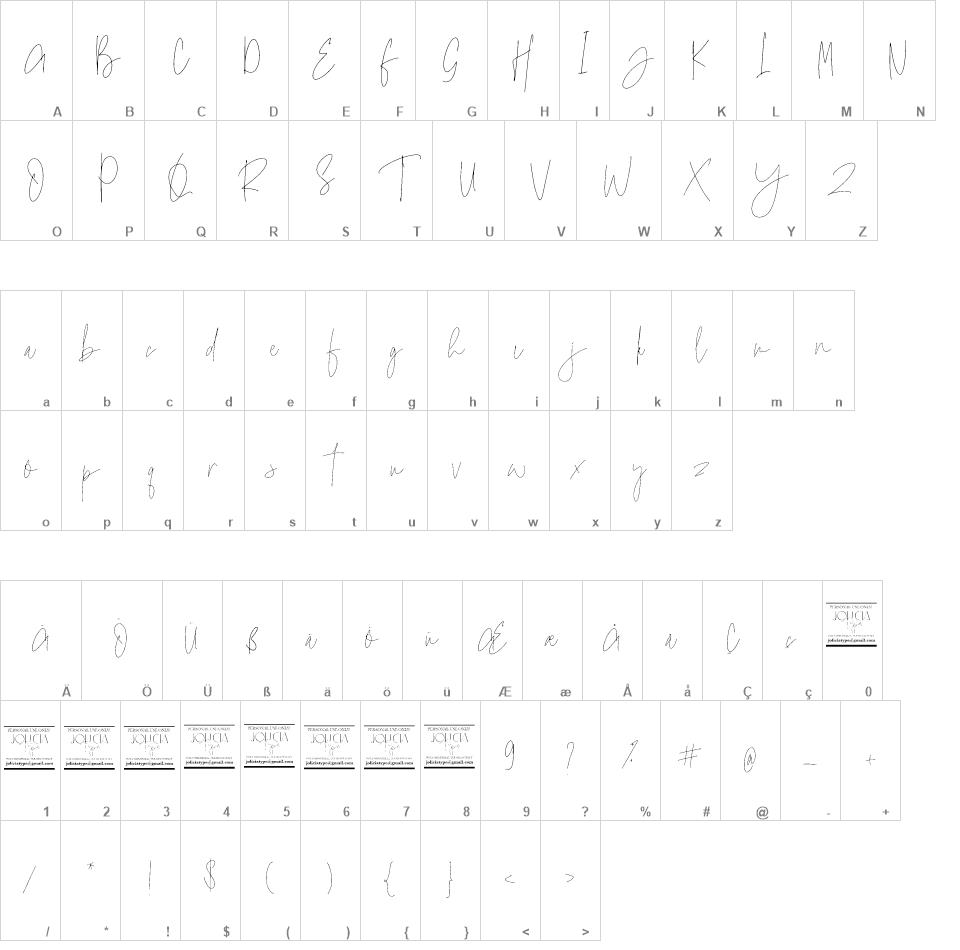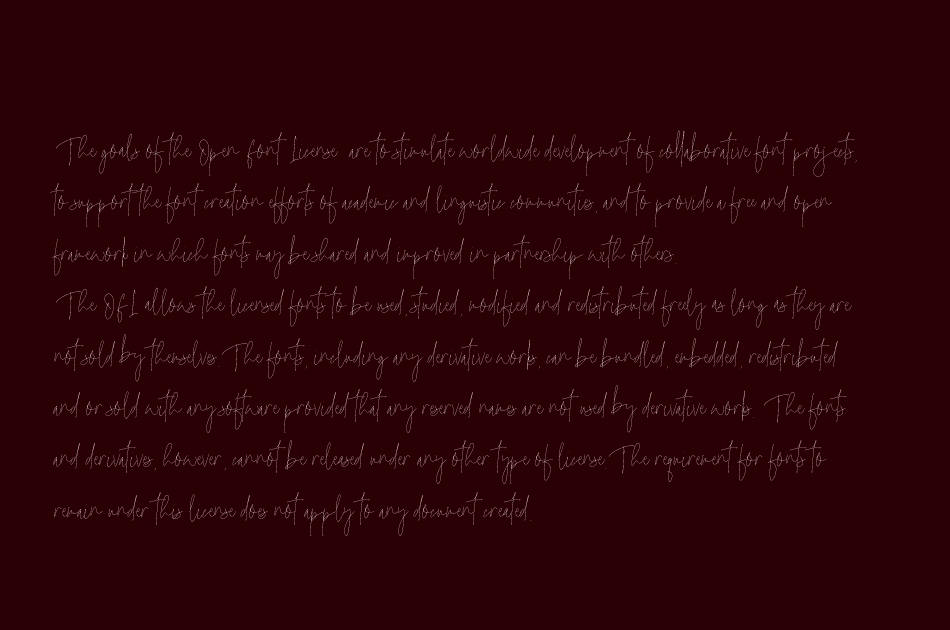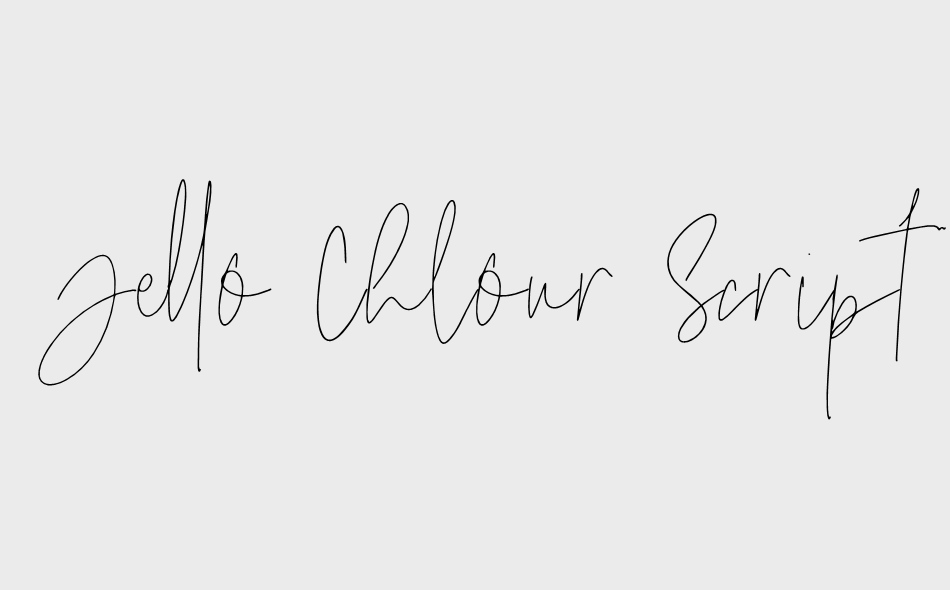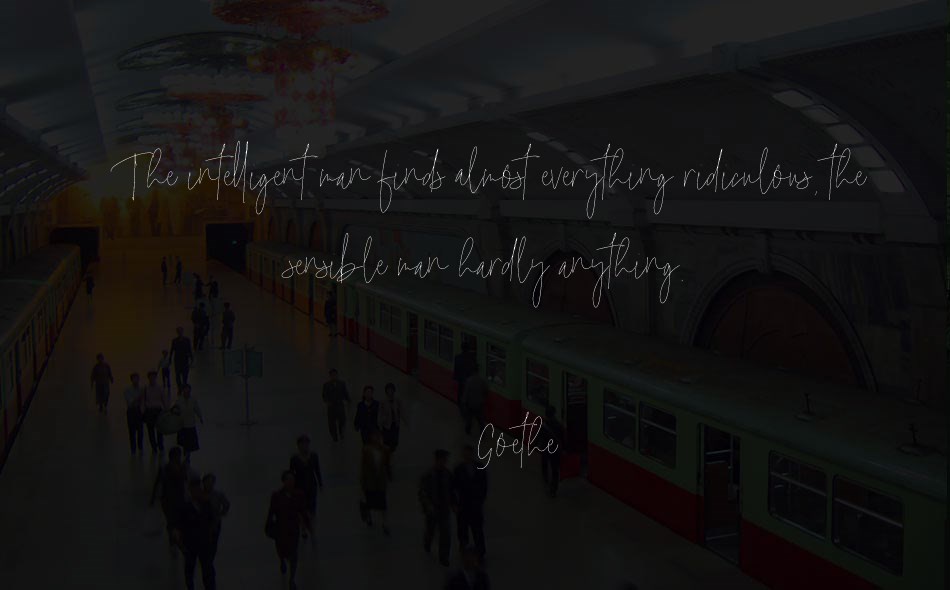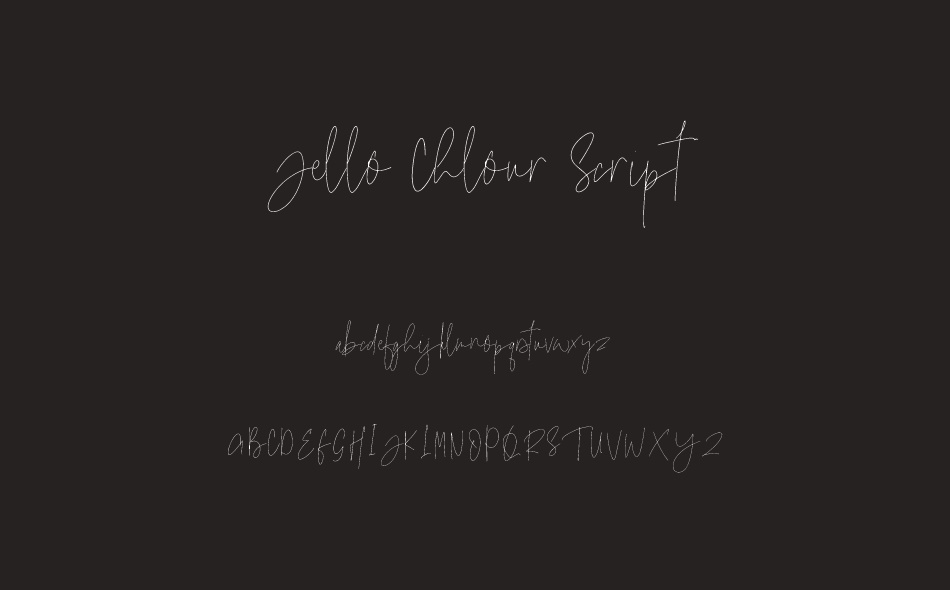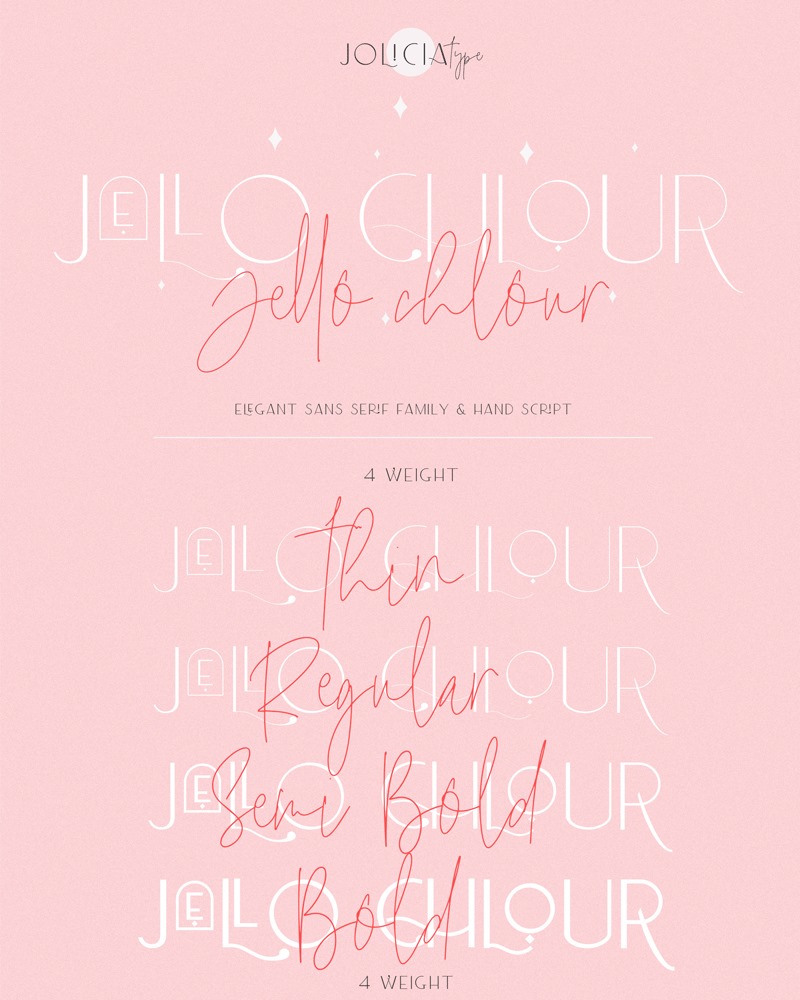
Jello Chlour Script font
Say hello for our first debut "Jello Chlour " Family
combine stylish elegent sans serif and beauty script
with Modern Elegant Style this is perfect for branding, logos, invitation, masterheads and more.